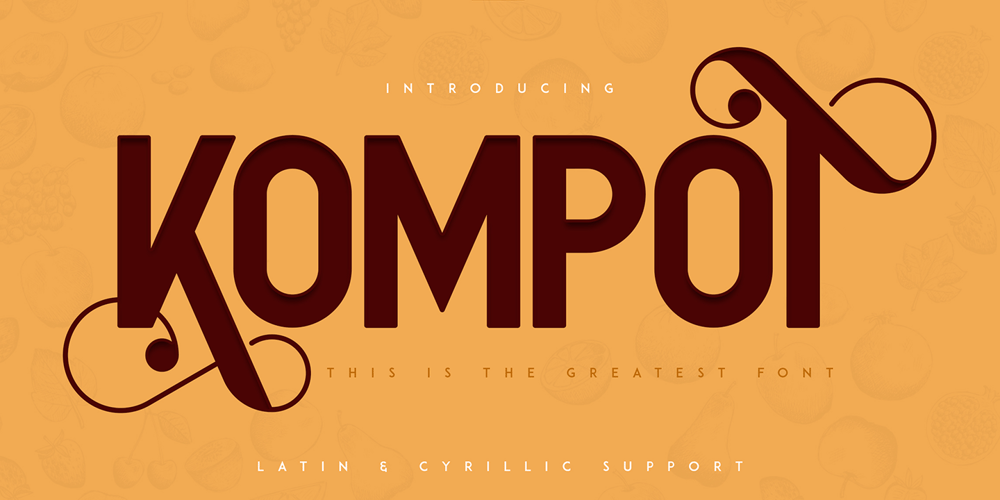
Kompot Sans Font Family was designed by Vladimir Fedotov, Plamen Petrov and published by VP Creative Shop. Kompot Sans contains 2 styles and family package options. Kompot typeface with 2 styles Kompot Sans is swirly, vintage typeface with 2 styles to enchant your next project. They are loaded alternate glyphs and multilingual support. Very versatile fonts that works great in large and small sizes. Basic latin, advanced latin, basic Cyrillic and advanced Cyrillic character sets are supported!Kompot Sans is perfect for branding projects, home-ware designs, product packaging, magazine headers – or simply as a stylish text overlay to any background image. Uppercase numeral, punctuation & Symbol Regular Outline Alternate glyphs Multilingual support Basic and Advanced Cyrillic support How to access alternate glyphs?To access alternate glyphs in Adobe InDesign or Illustrator, choose Window Type & Tables GlyphsIn Photoshop, choose Window Glyphs. In the panel that opens, click the Show menu and choose Alternates for Selection. Double-click an alternate’s thumbnail to swap them out.